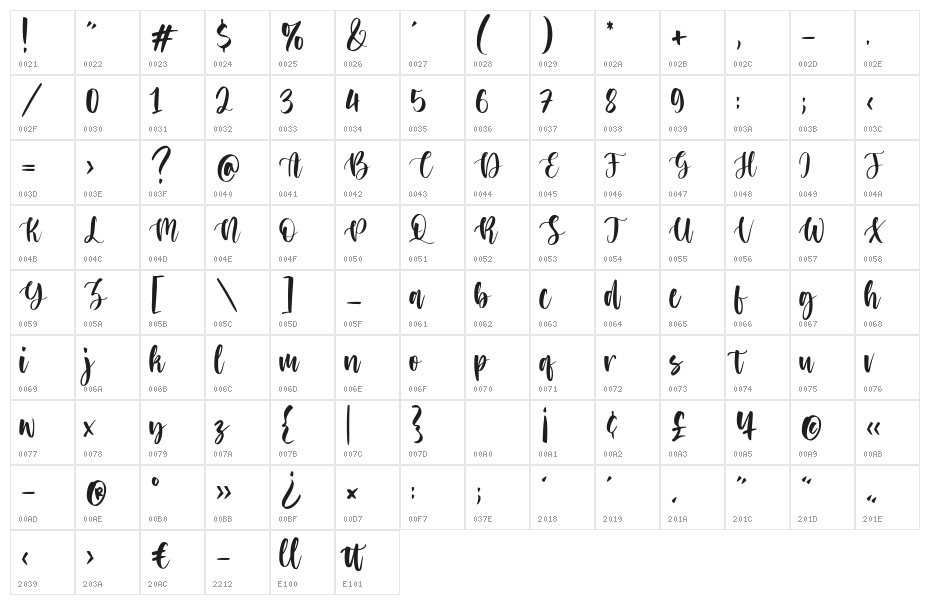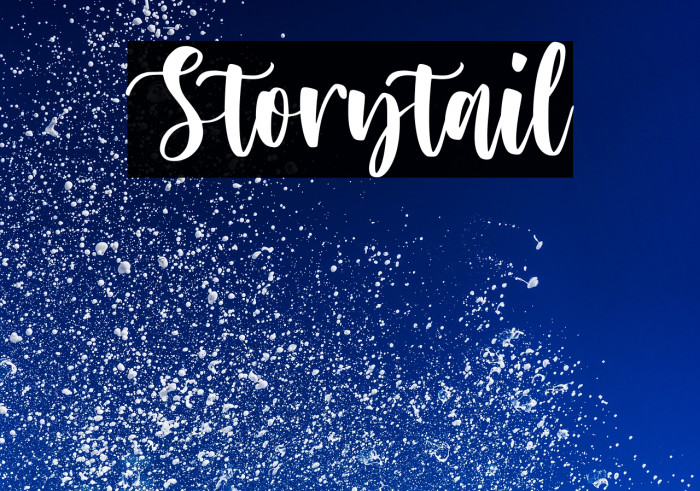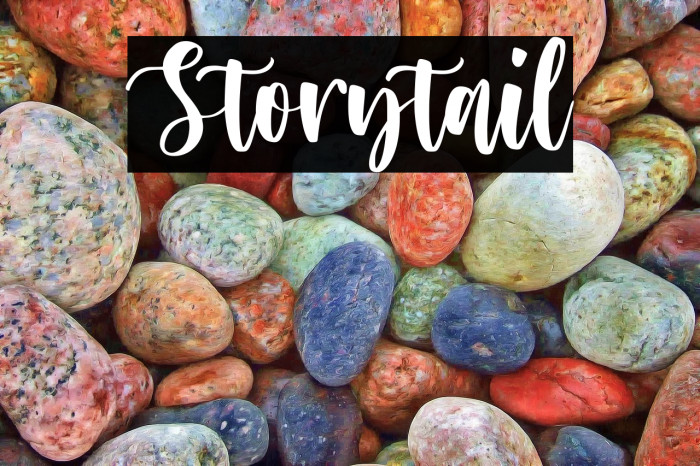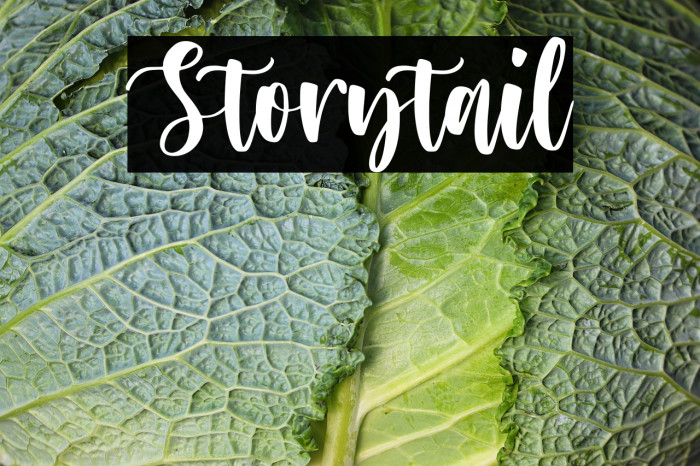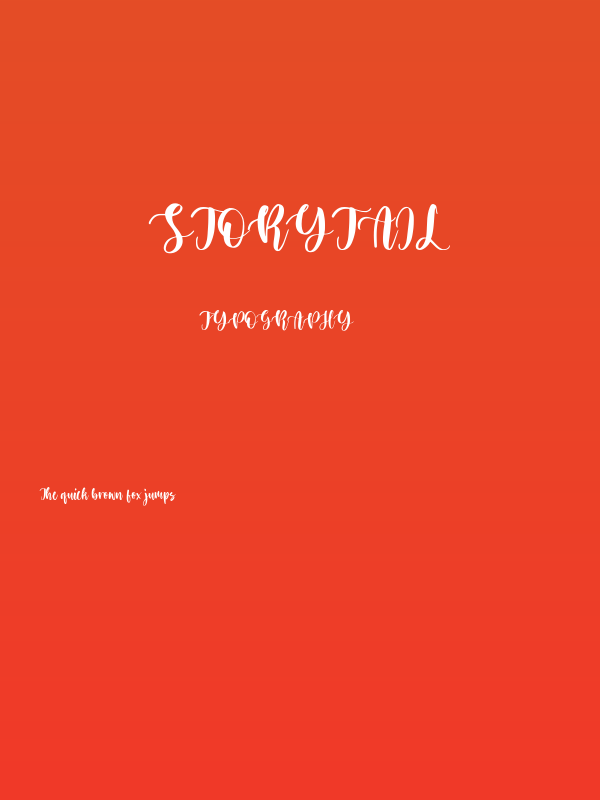
Storytail Font
Storytail Description
This font features a bold, flowing script style that exudes elegance and creativity. The characters are intricately designed with smooth, connected strokes, giving it a handwritten appearance. The uppercase letters are particularly ornate, with flourishes that enhance their decorative appeal. The lowercase letters maintain a consistent style, with some characters featuring unique loops and swashes. Numbers and special characters are crafted with the same attention to detail, ensuring a cohesive look across all elements. This font is perfect for projects that require a personal touch, such as invitations, greeting cards, and branding materials.
| Use Case | Logos, Invitations, Greeting Cards |
| Proposed Projects | Ideal for wedding invitations, greeting cards, logos, and branding materials. |